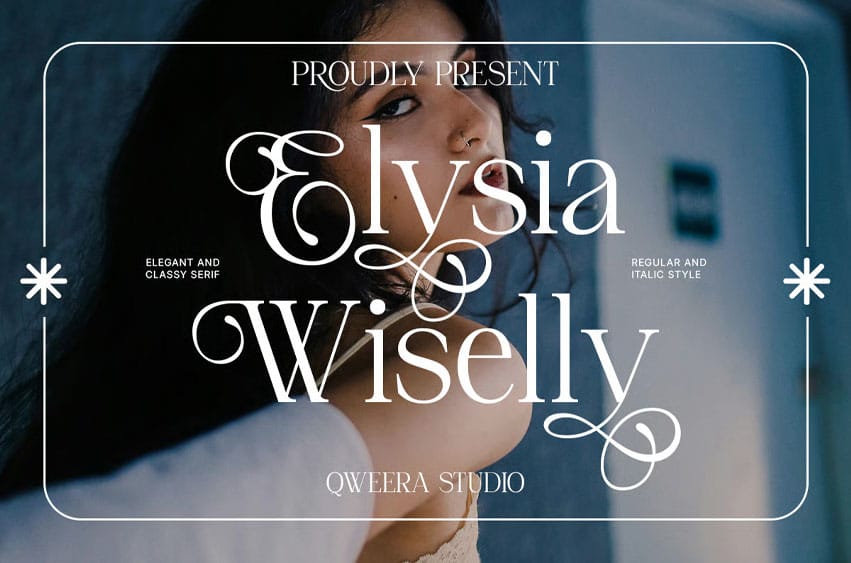
Elysia Wiselly Font is an elegant decorative serif typeface crafted with beautiful ornamental swashes and sophisticated letterforms. Combining timeless serif elegance with romantic flourishes, this font creates a luxurious and unforgettable visual identity.
Perfect for wedding invitations, luxury branding, boutique logos, beauty products, editorial headlines, and premium stationery. Elysia Wiselly brings a refined feminine charm that instantly elevates any design project.
Its stylish alternates and graceful curves make it ideal for designers seeking elegance, romance, and exclusivity.
- Alternates & ligatures
- Decorative swashes
- Regular & Italic
Wedding invitations, luxury branding, beauty packaging, boutique logos, feminine editorials, premium stationery